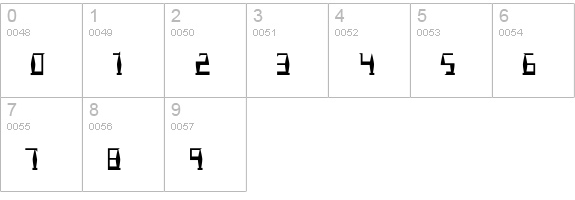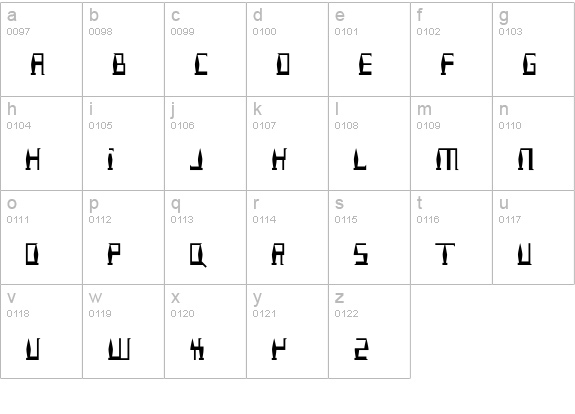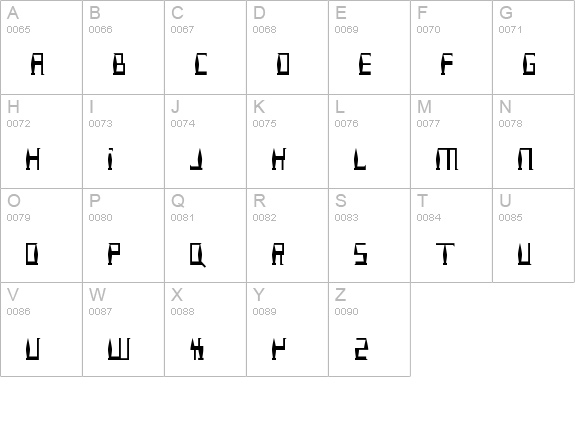
Baluster font is a captivating and elegant typeface that exudes sophistication and style. Its graceful curves and sharp edges create a perfect balance between modernity and classic charm. With its unique design, Baluster stands out as a versatile font suitable for a wide range of projects, from branding to editorial design. And the best part? Baluster font is available for free! You can easily download it at FontsMarket.com and start using it in your projects right away. Whether you're designing a logo, creating a poster, or crafting a website, Baluster font will add a touch of class and flair to your work. Don't miss out on this opportunity to enhance your designs with this beautiful and freely available font.